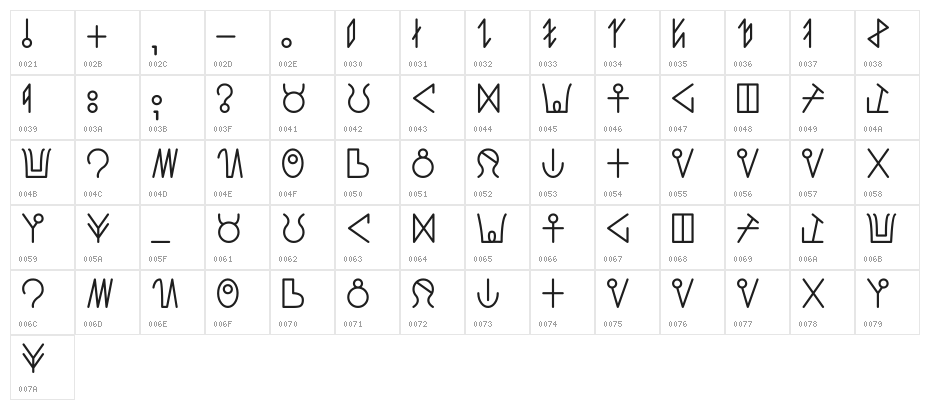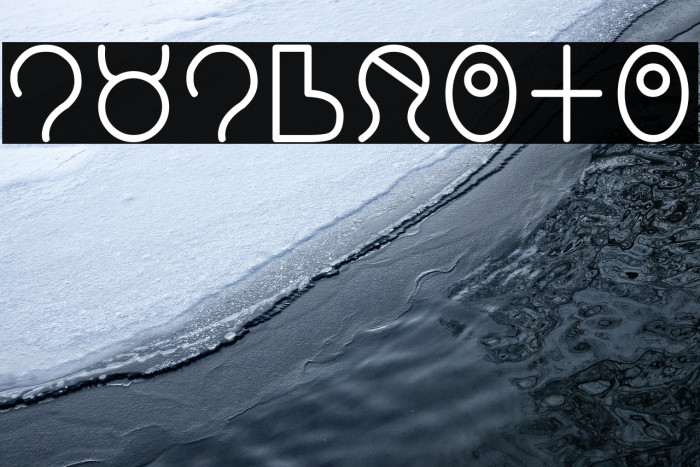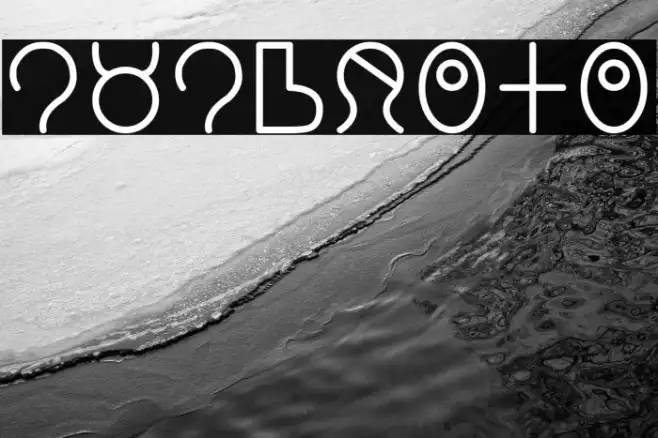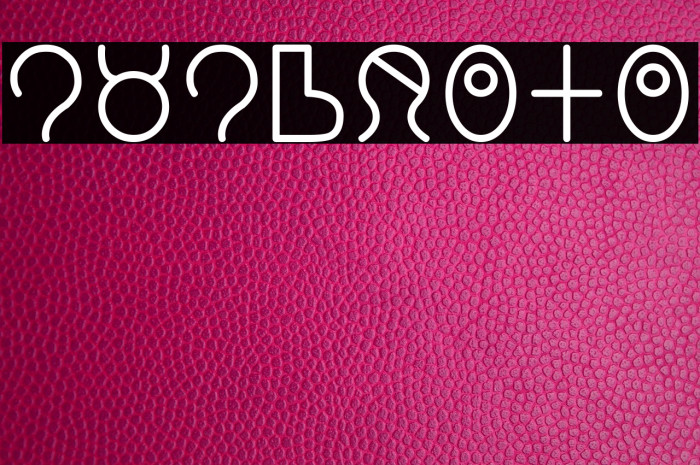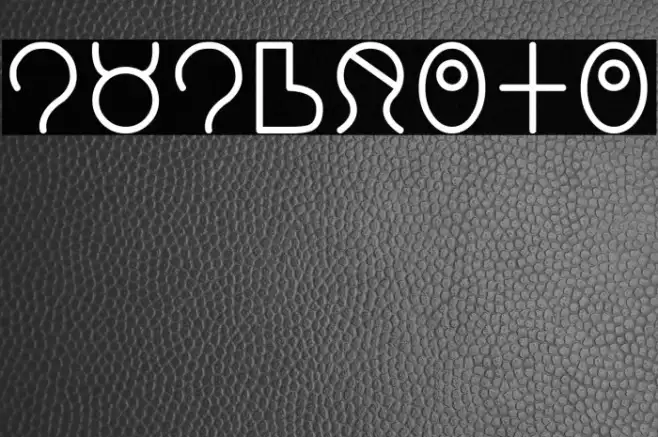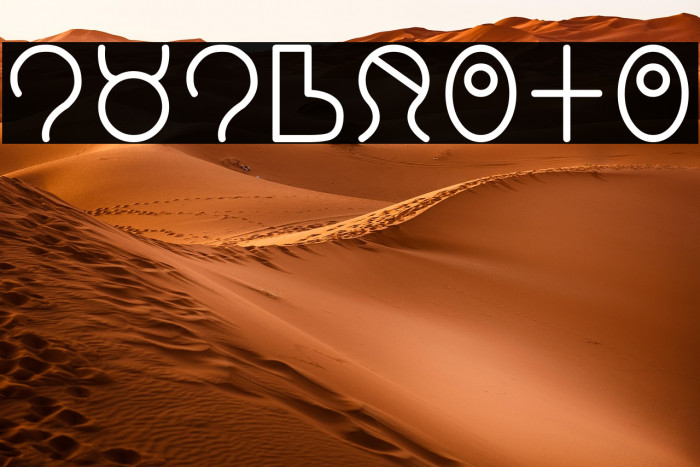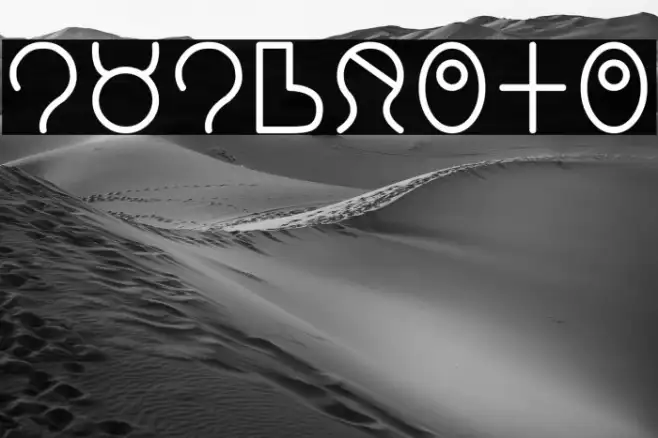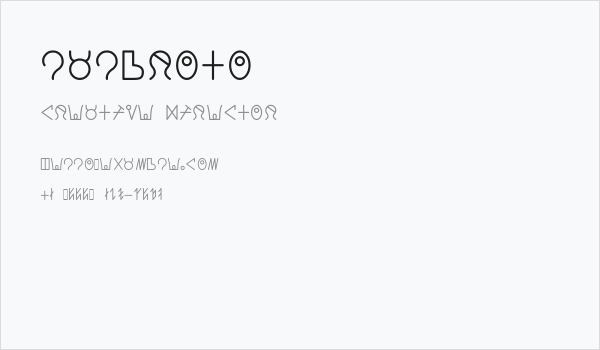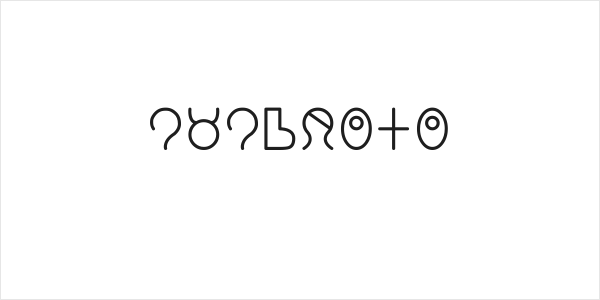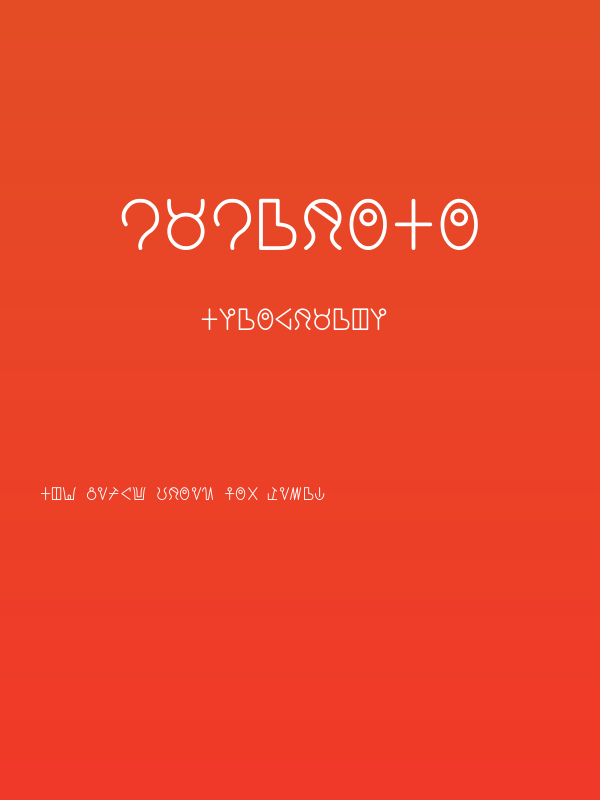
LALProto Font
LALProto Description
This design features a highly stylized and abstract set of symbols that resemble ancient or fictional scripts. The characters are composed of geometric shapes, lines, and curves, creating a mysterious and enigmatic appearance. The overall design is consistent, with each symbol maintaining a similar weight and stroke thickness. The characters are evenly spaced, contributing to a balanced and harmonious look. This style is reminiscent of ancient runes or hieroglyphs, making it suitable for projects that require a touch of the mystical or otherworldly.
| Overall Style | Mystical, Ancient, Enigmatic |
| Use Case | Logos, Titles, Decorative elements |
| Proposed Projects | Ideal for fantasy games, movie titles, or any project needing a mystical or ancient aesthetic. |